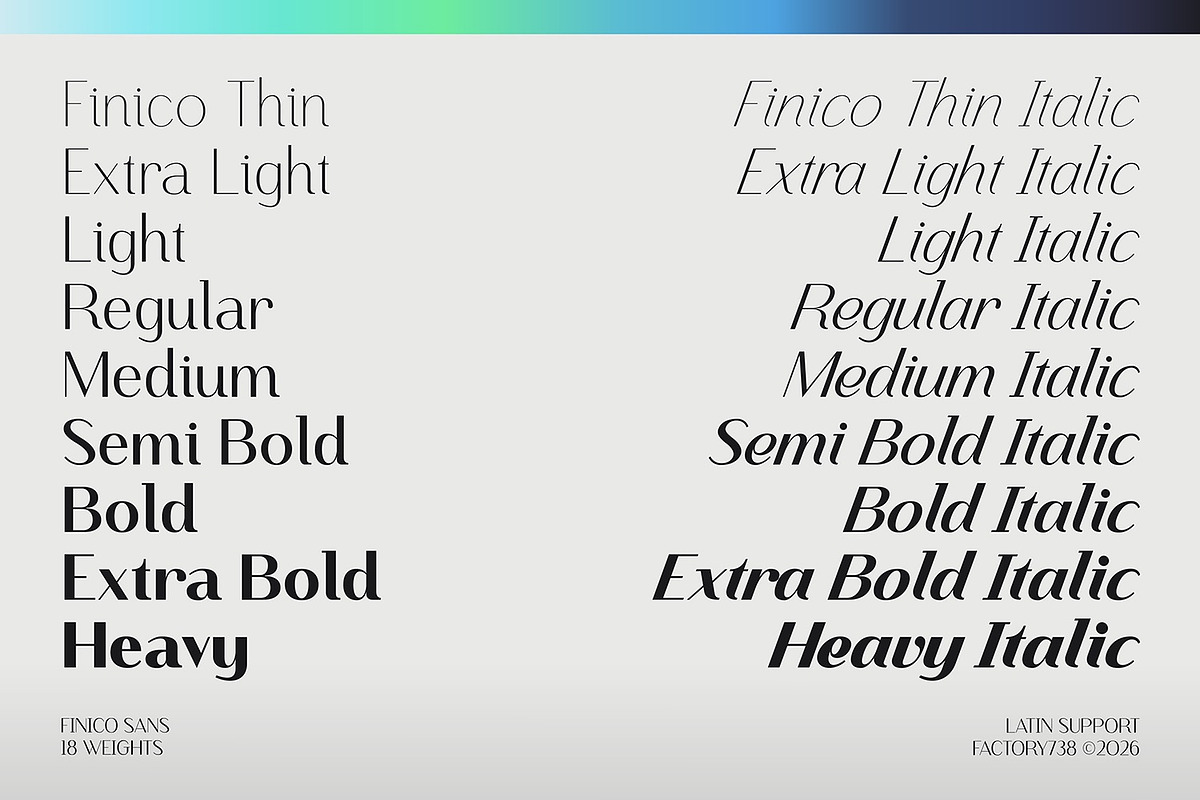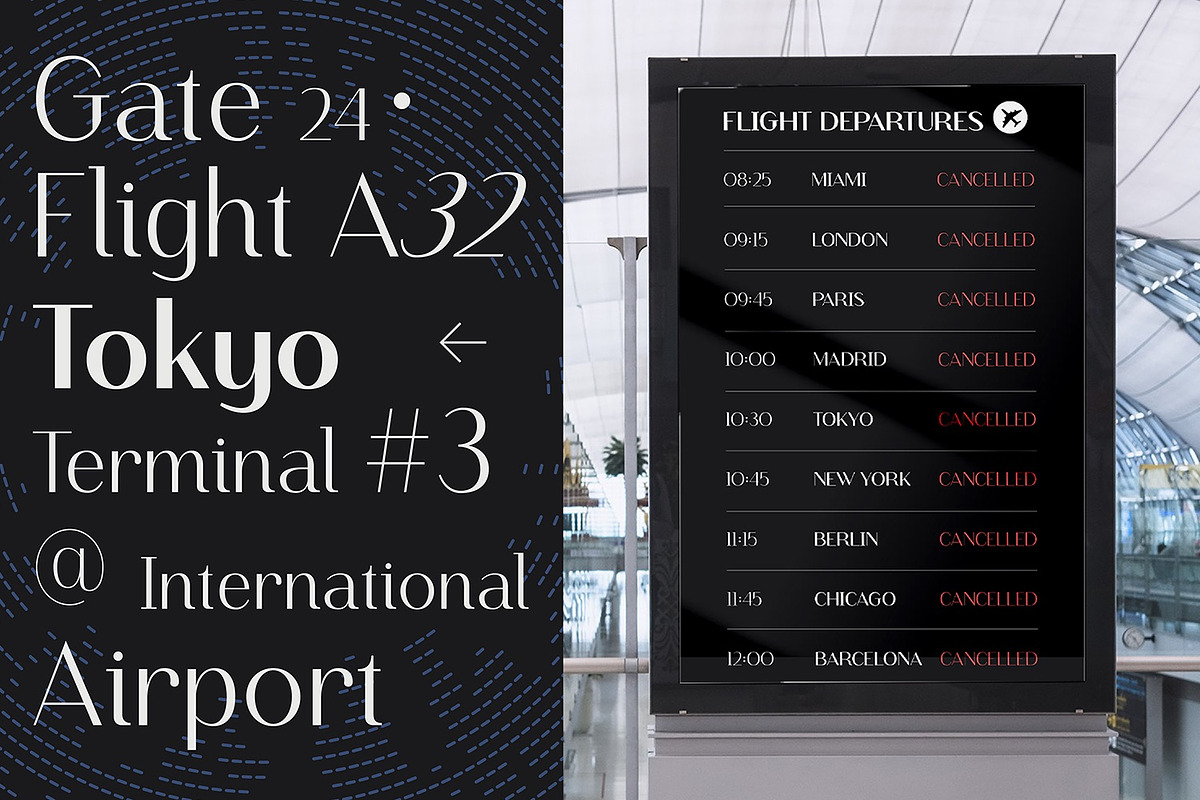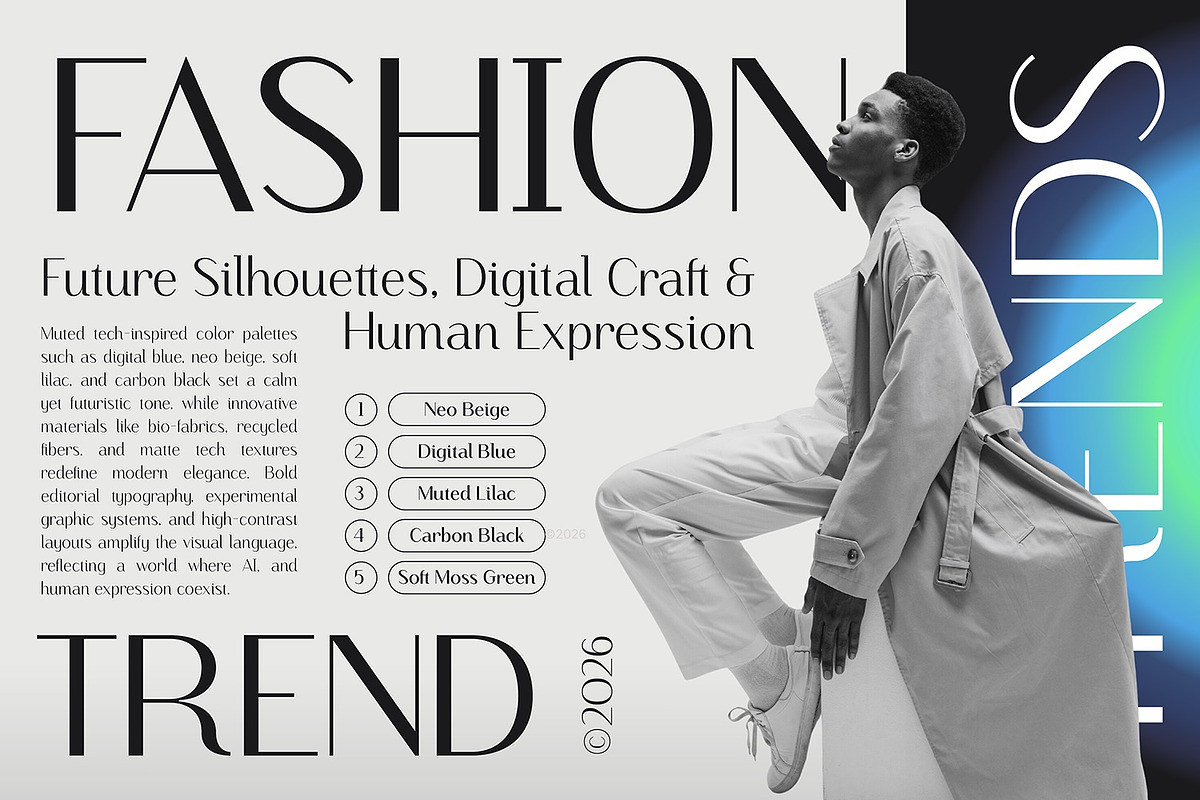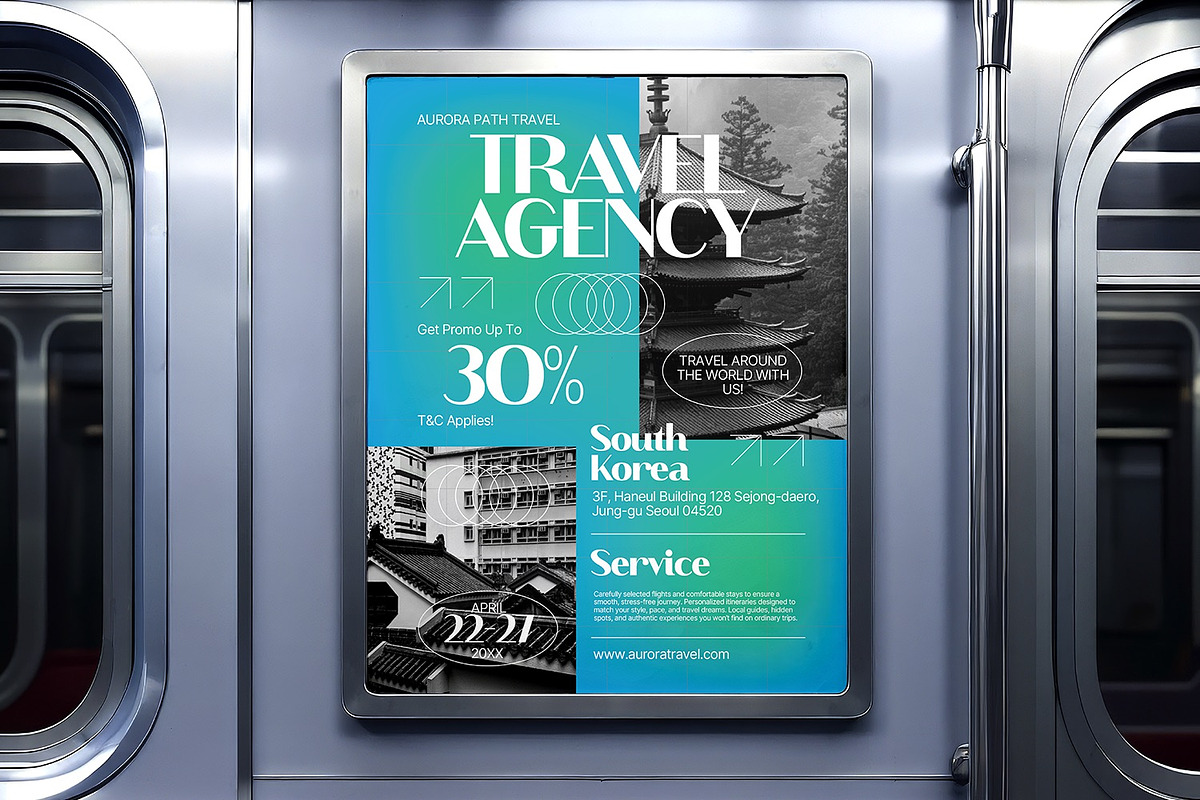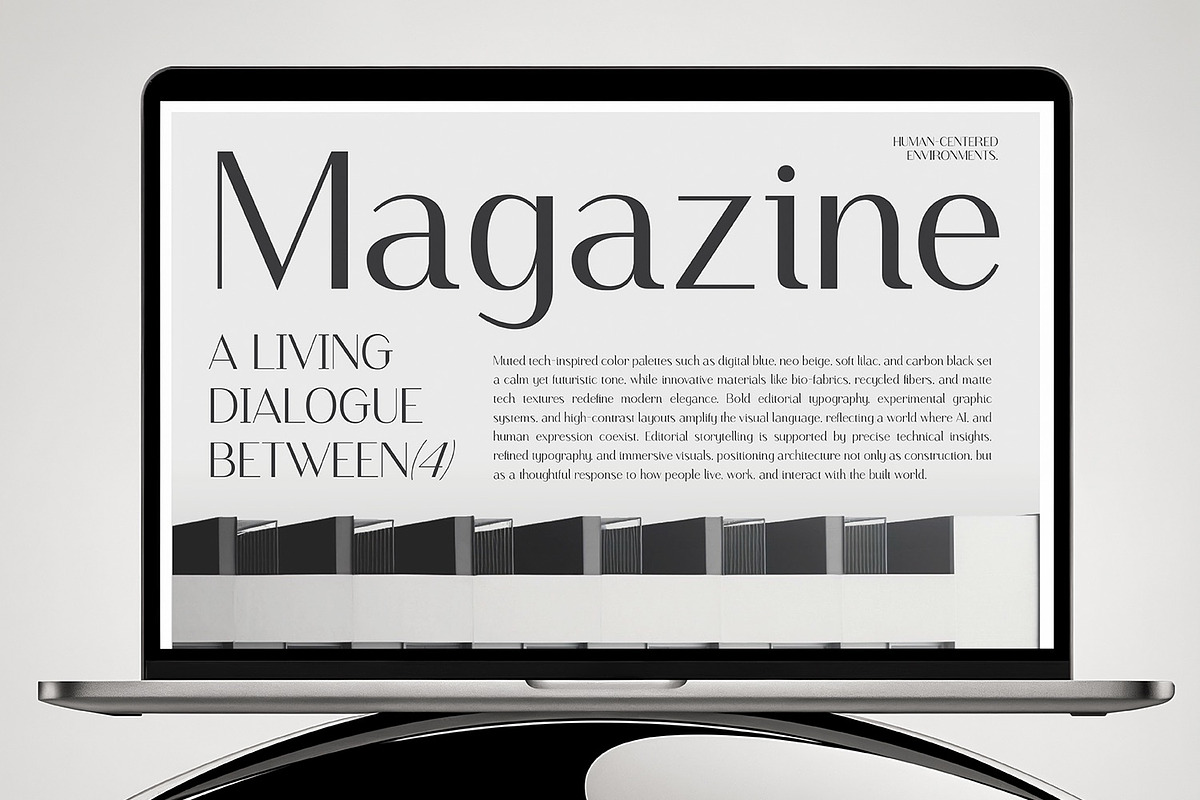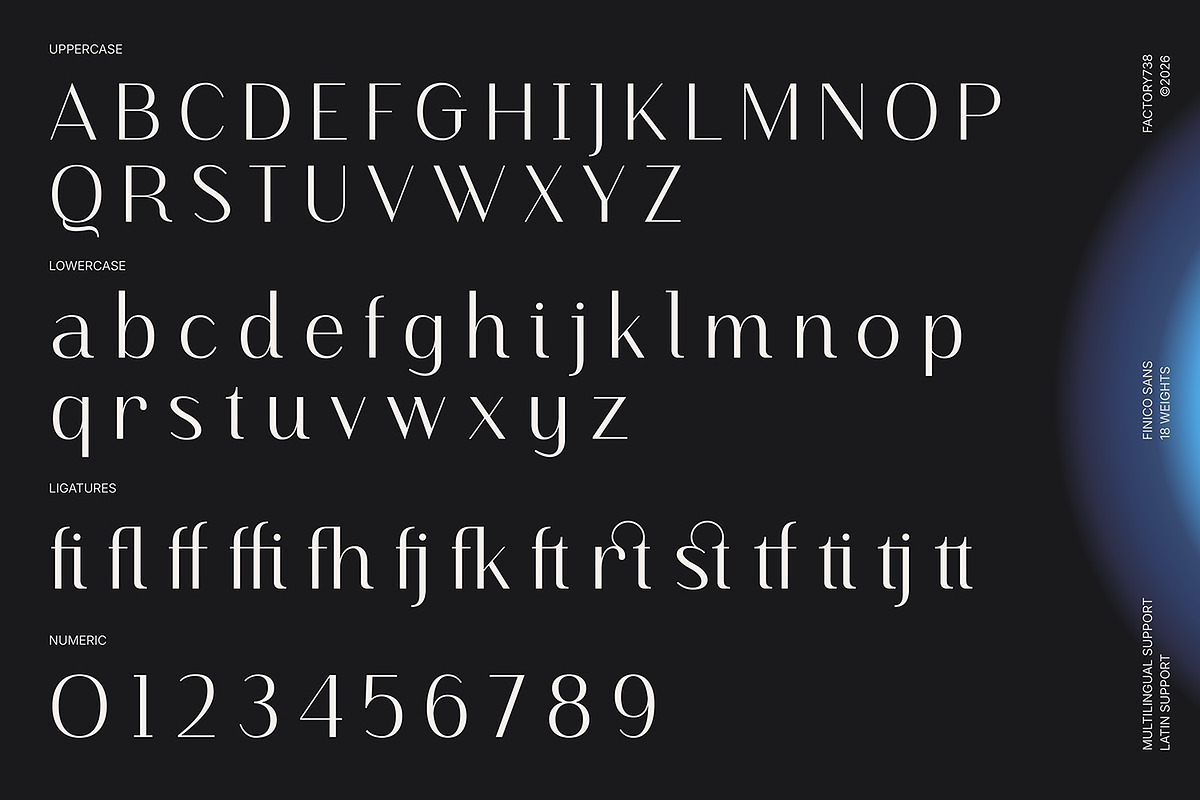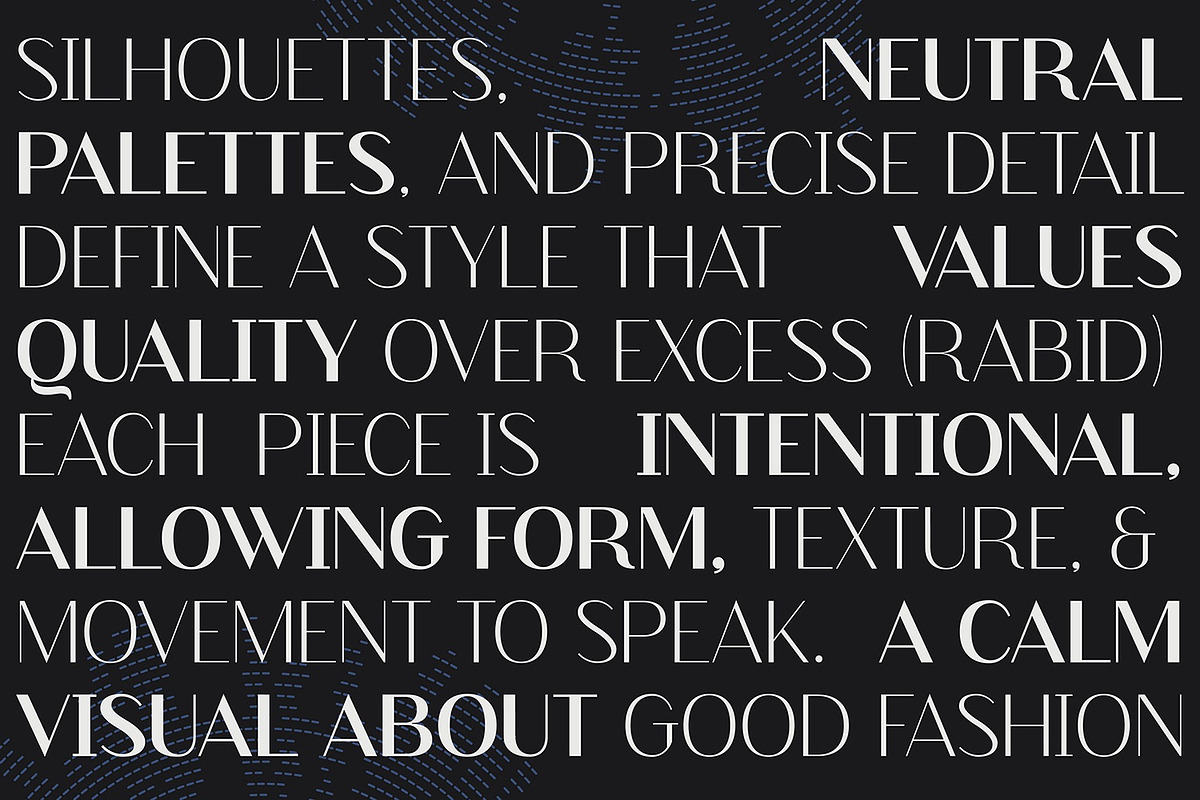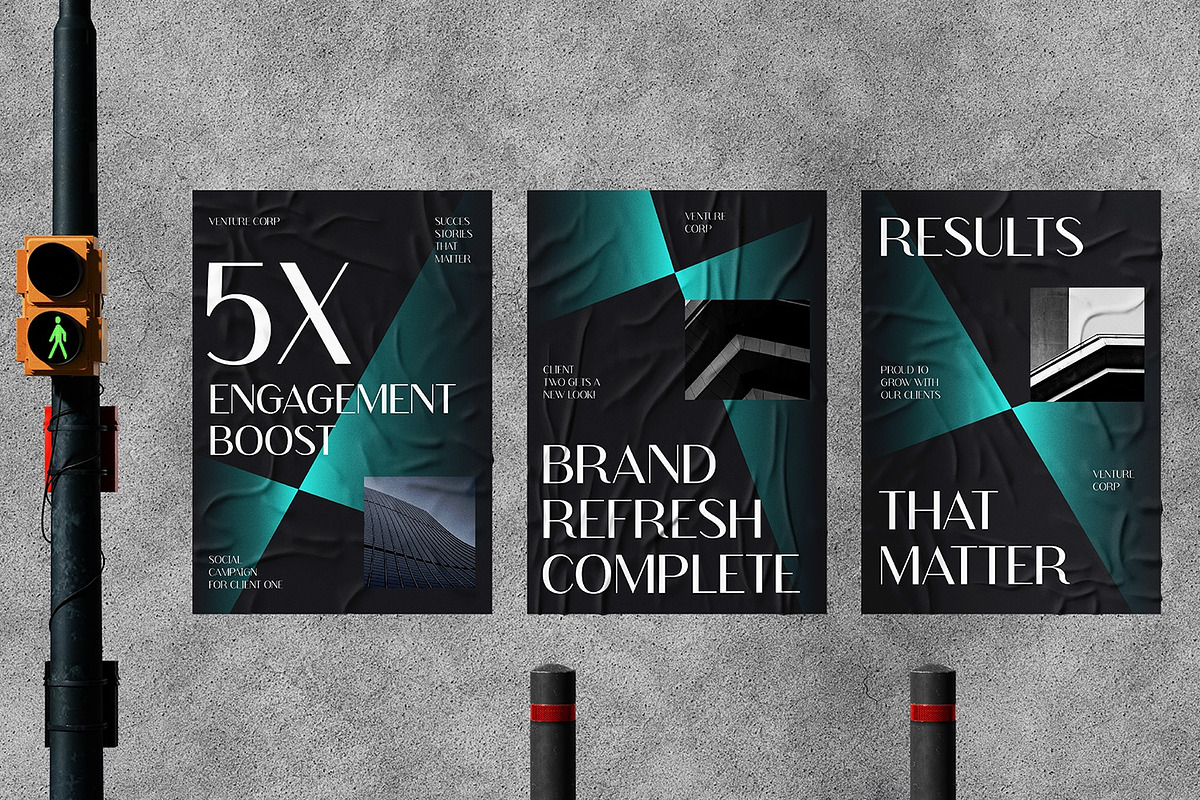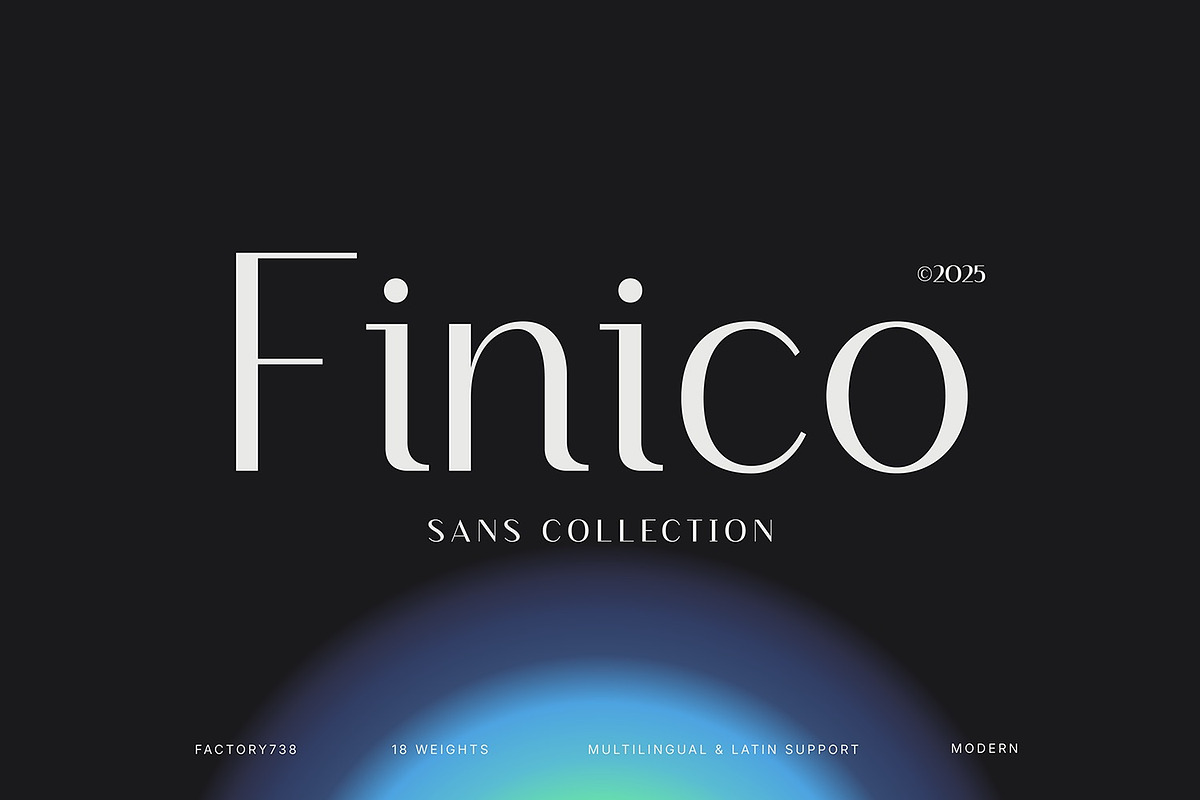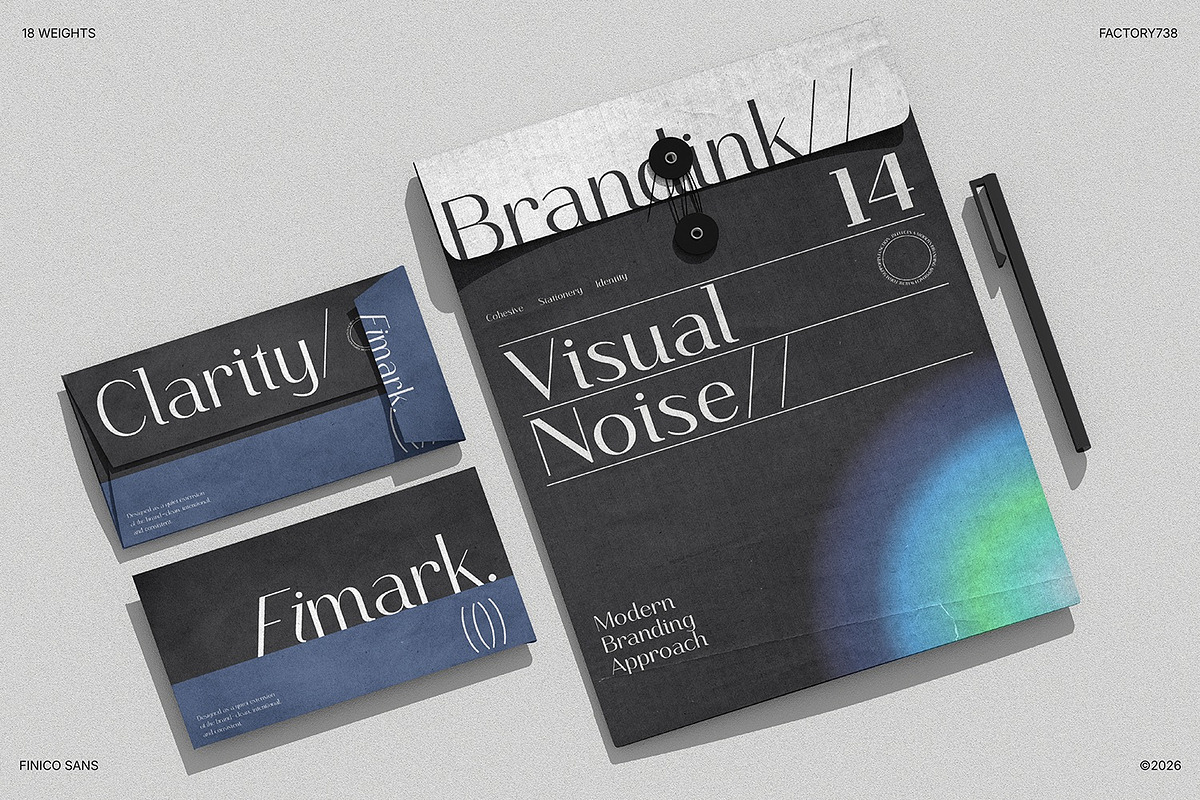
Finico Sans – Modern Editorial Sans
Finico Sans: The Intersection of Digital Craft and Modern Elegance
Elevate your contemporary branding with Finico Sans, a clean and sophisticated type family designed for the next generation of editorial and brand systems.
Drawing inspiration from future silhouettes and tech-inspired aesthetics, Finico Sans balances architectural precision with smooth, organic curves. It is purposefully designed for creators who need a versatile typeface that feels both innovative and timeless—perfect for bold editorial layouts, high-end fashion branding, and minimalist digital interfaces.
Now featuring a comprehensive library of 18 styles, Finico Sans offers a polished visual tone from ethereal Thin to commanding Heavy. Whether used for high-contrast headlines or immersive body text, this family delivers effortless readability and a premium feel that adapts seamlessly across both digital and print platforms.
- Aesthetic Focus: Modern editorial minimalism, tailored for fashion, lifestyle branding, and future-ready tech systems.
- 18 Total Styles: A full range of weights (Thin to Heavy) with matching Italics for dynamic expression.
- Pro Character Set: Includes stylistic ligatures and deep OpenType features for a custom-tailored typographic experience.
- Global Language Support: Comprehensive multilingual support for 119+ languages, including full Latin and Cyrillic sets.